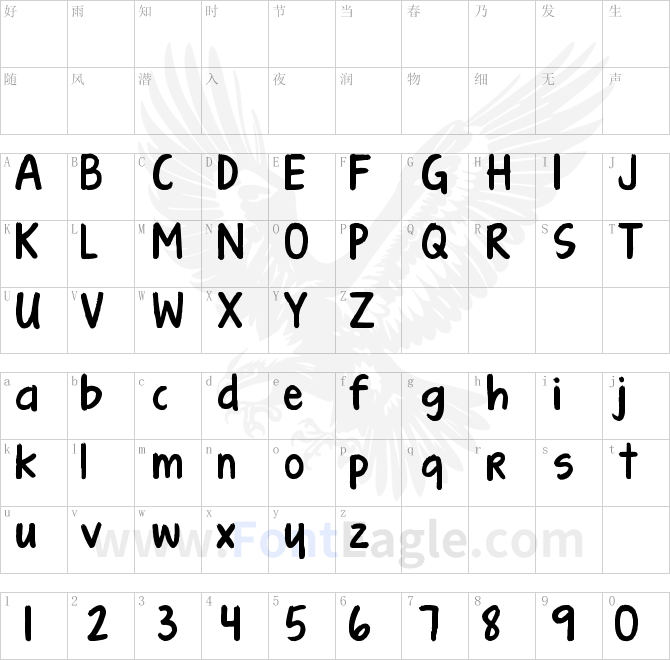
- Font name:KG Turning Tables
- Font Subfamily ID:KimberlyGeswein: KG Turning Tables: 2012
- Font Full Name:KG Turning Tables
- Postscript:KGTurningTables